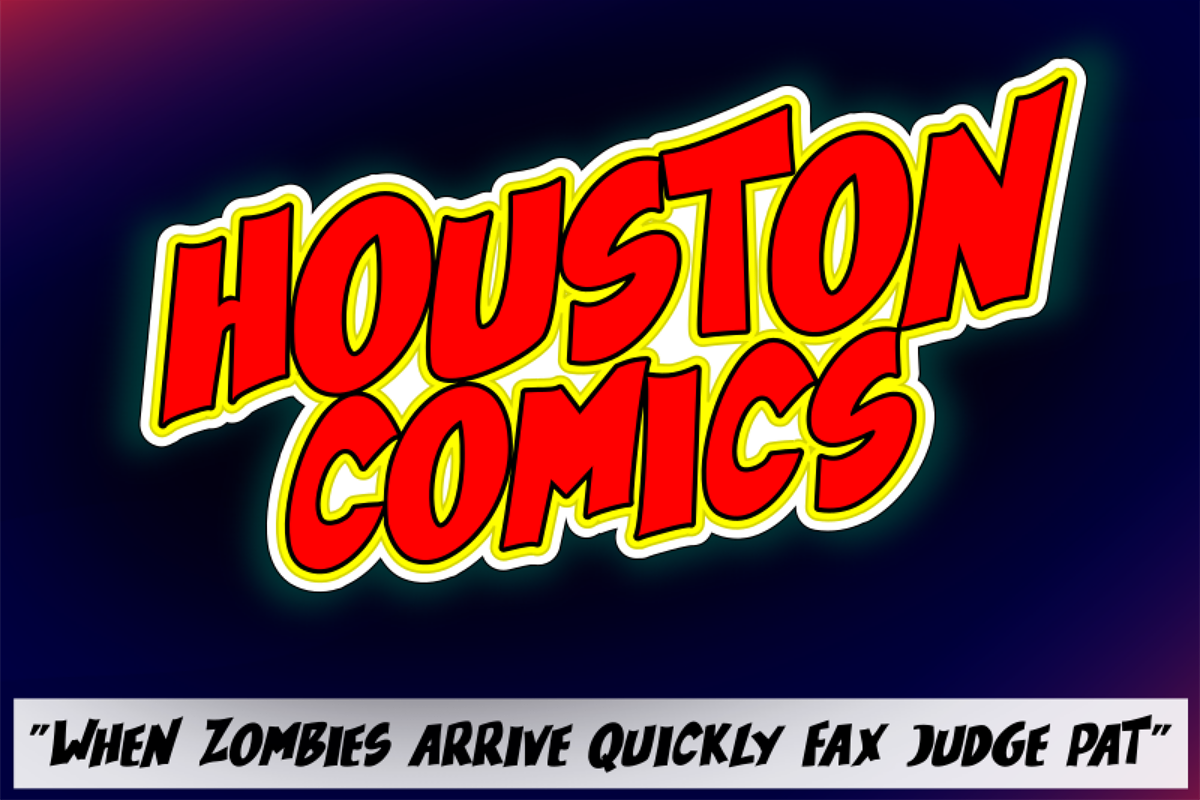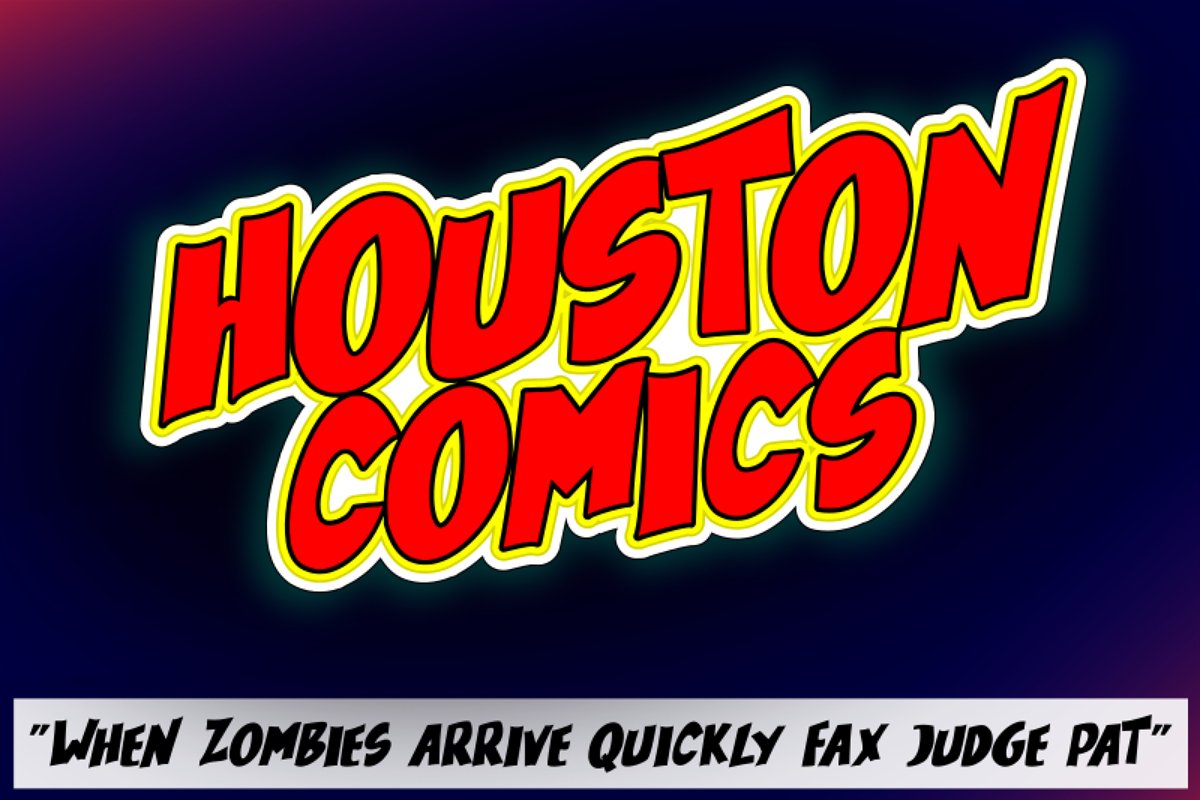
Houston Comics
Introducing Houston Comics Font. This font is great for comic title, books title, poduct labels,posters, merchandises, tshirts and many more!